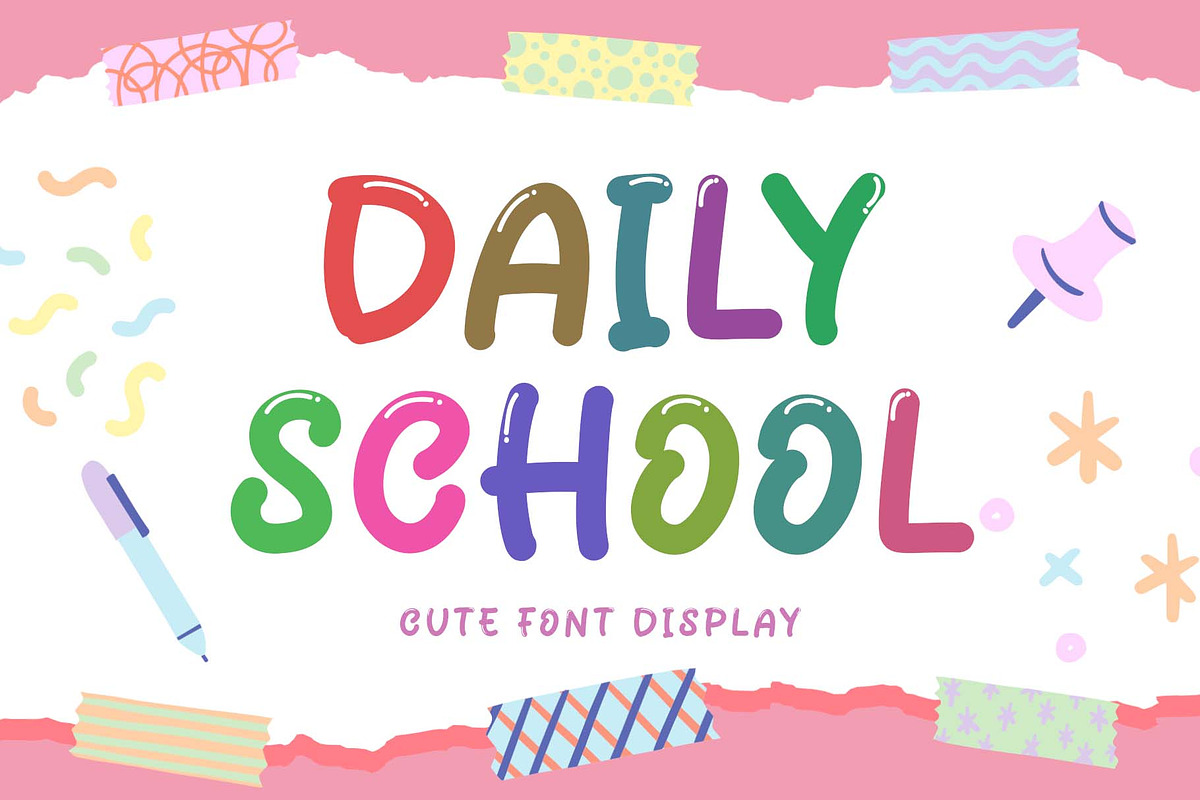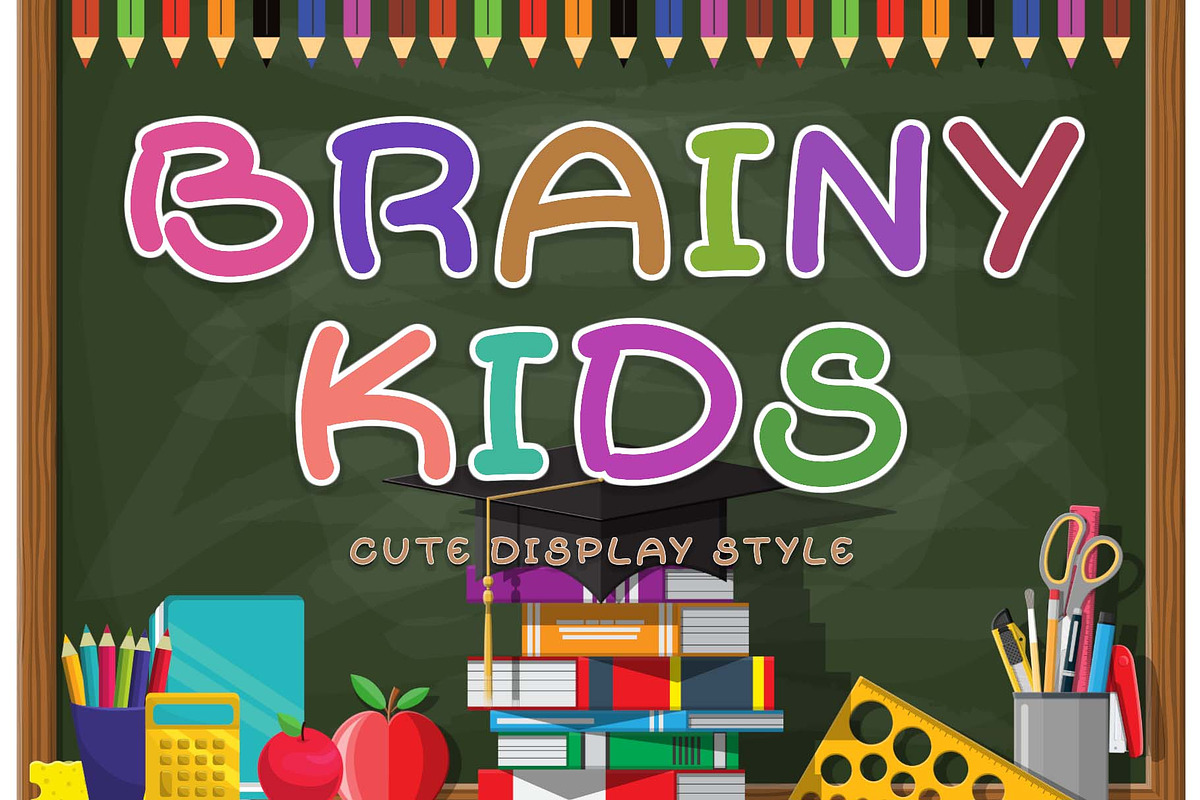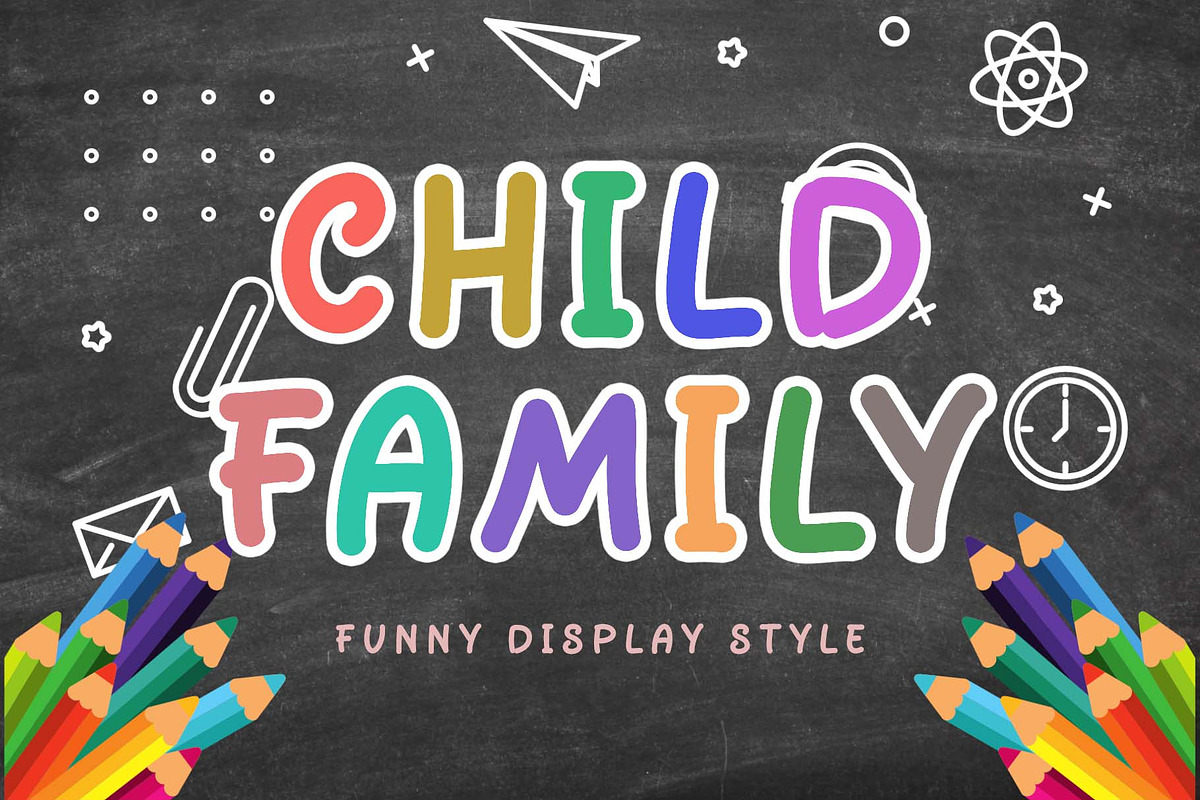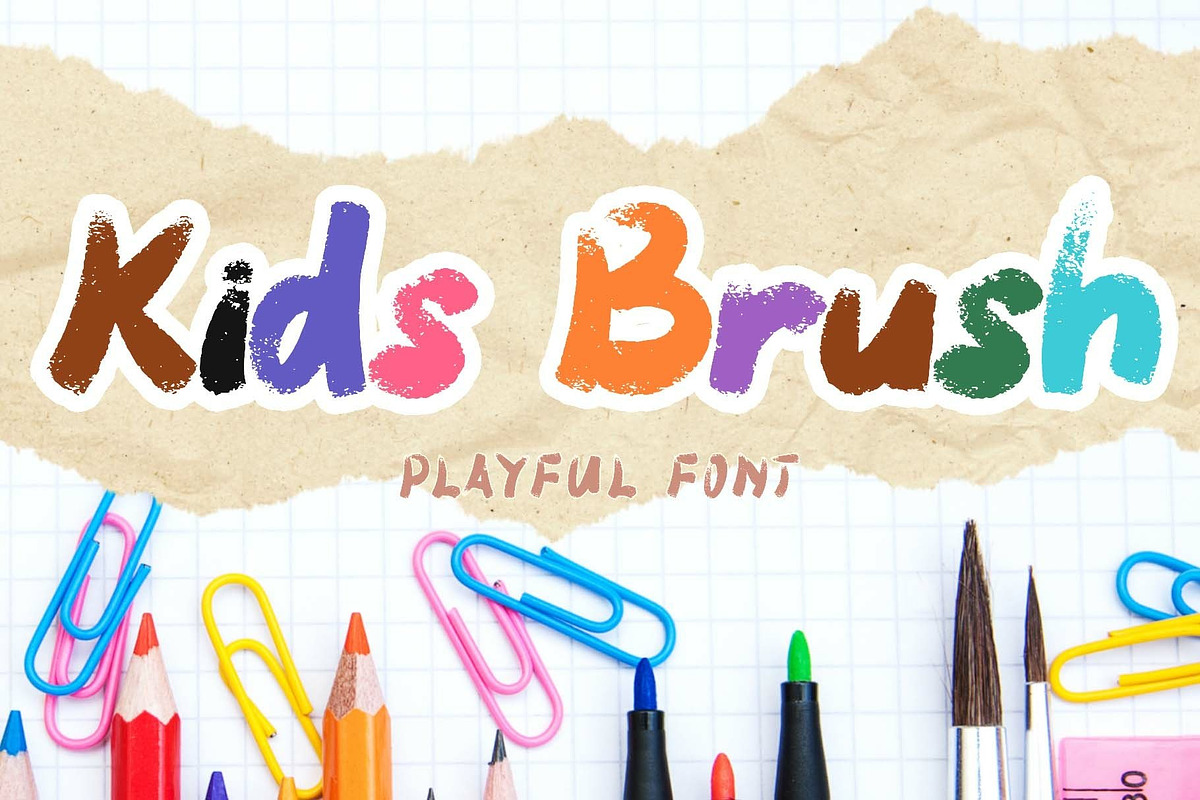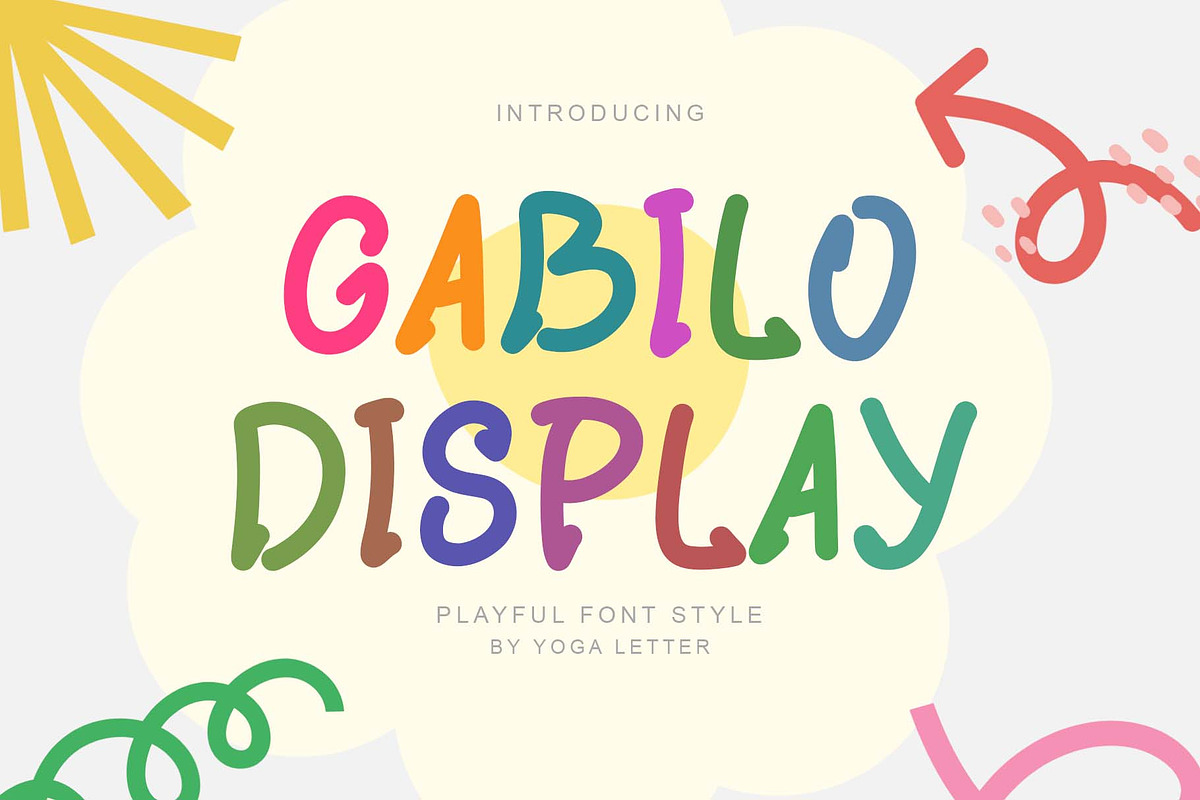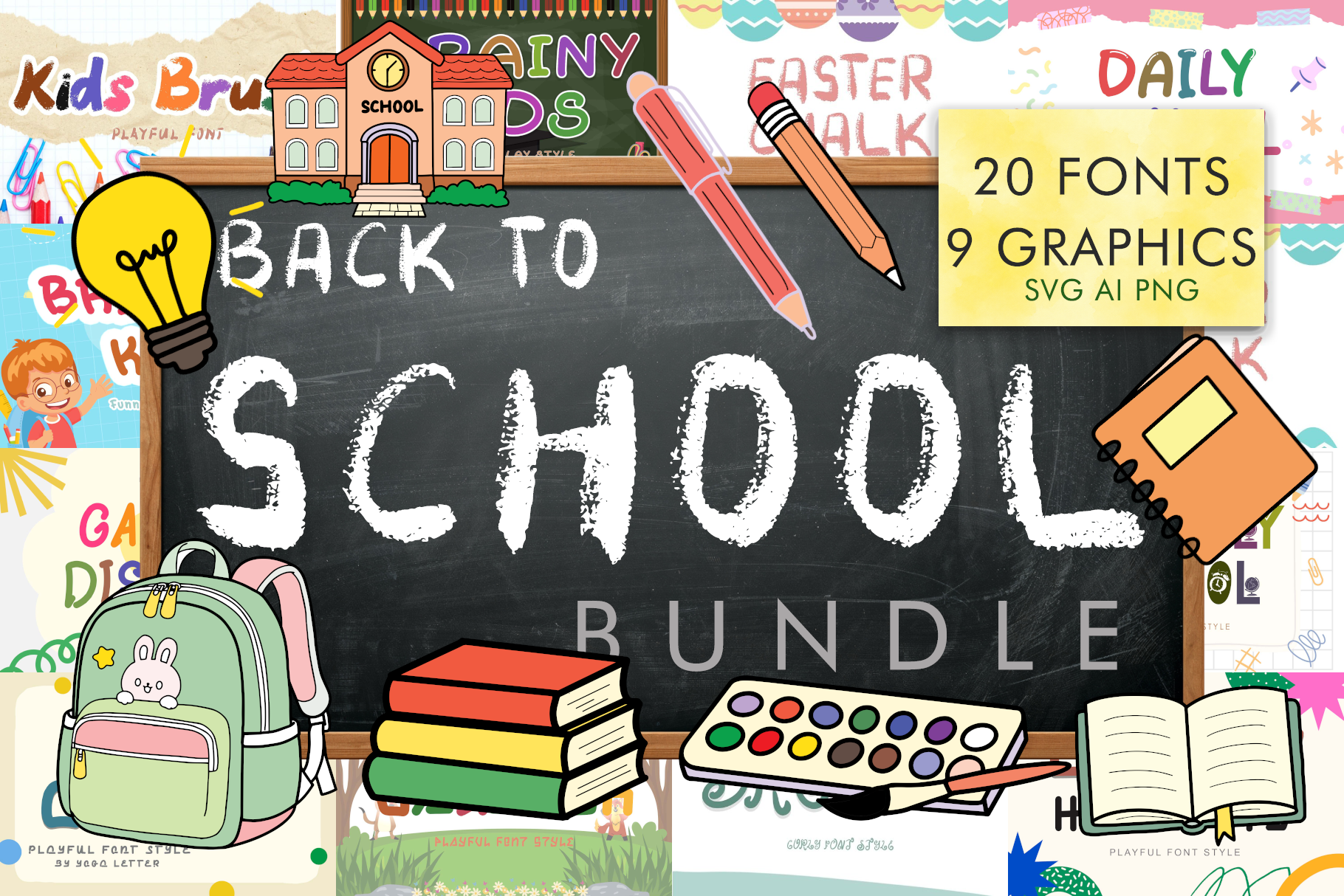
Back to School Fonts & Graphics
Bring creativity to every classroom project with this fun Back to School Bundle! Featuring 20 cheerful fonts and 9 school-themed graphics, this collection is perfect for classroom decor, worksheets, invitations, stickers, t-shirts, posters, notebooks, sublimation, Cricut crafts, and more. Designed with a fun, kid-friendly style, this is the perfect kit for creating eye-catching back to school designs.